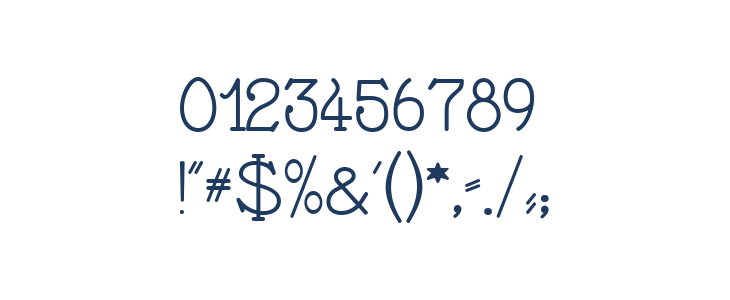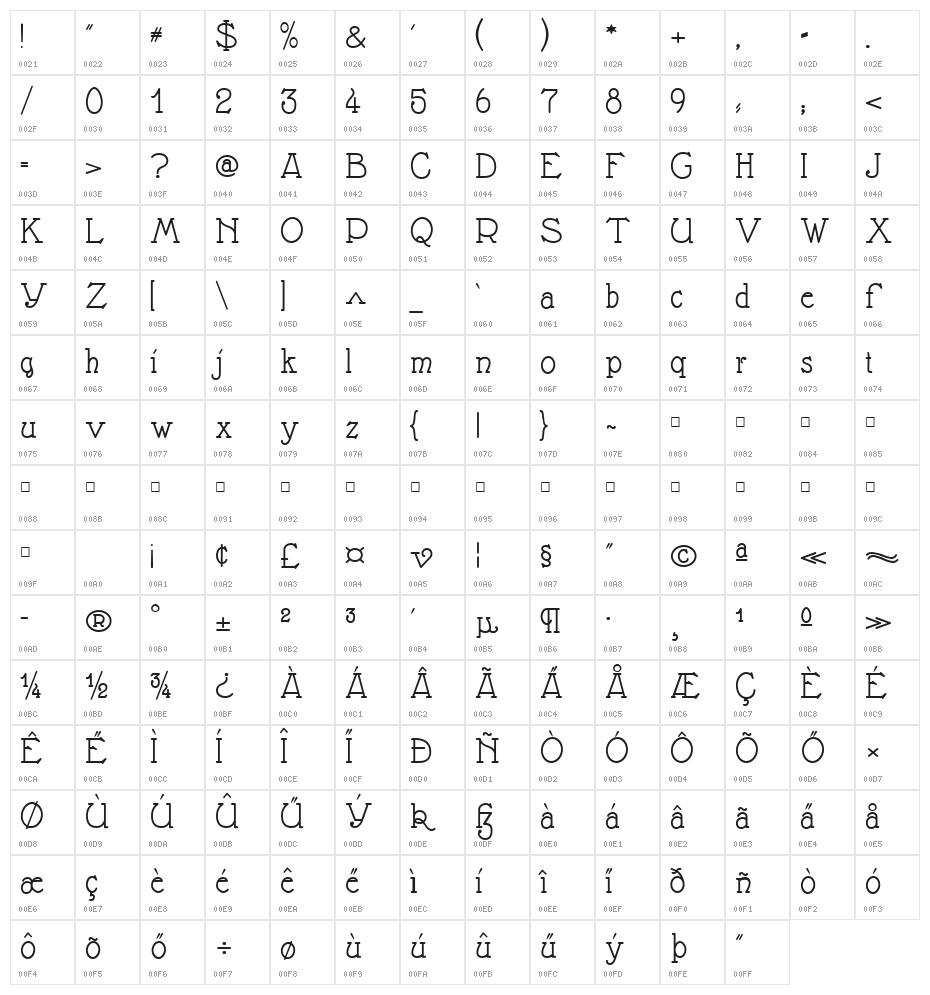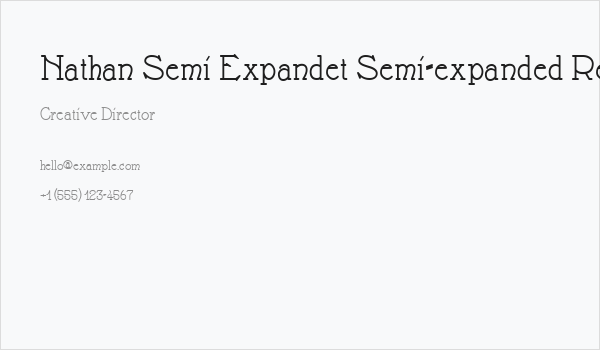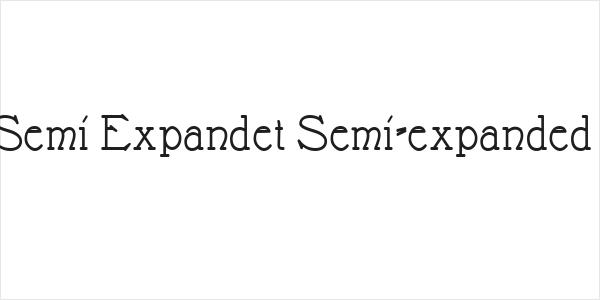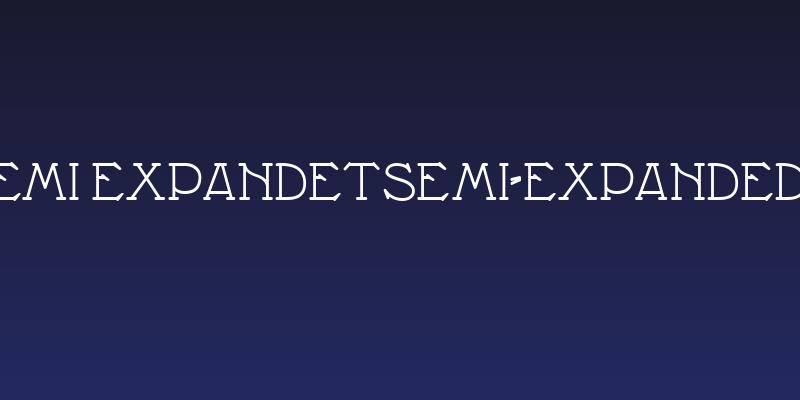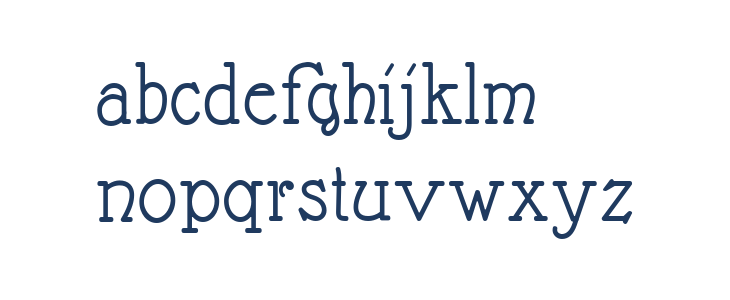
Nathan Semi Expandet Semi-expanded Regular Font
Nathan Semi Expandet Semi-expanded Regular Description
This font features a semi-expanded style with a unique blend of classic and modern elements. The uppercase letters exhibit a distinct geometric form with slightly curved edges, providing a sense of elegance and sophistication. The lowercase letters maintain a consistent flow, with rounded terminals that enhance readability. Numbers are clear and well-defined, making them suitable for various applications. The special characters are thoughtfully designed, maintaining the overall aesthetic of the font. This typeface balances traditional serif characteristics with a contemporary twist, making it versatile for multiple design projects.
| Overall Style | Modern Classic |
| Proposed Projects | Ideal for branding, editorial design, packaging, and web design projects. |